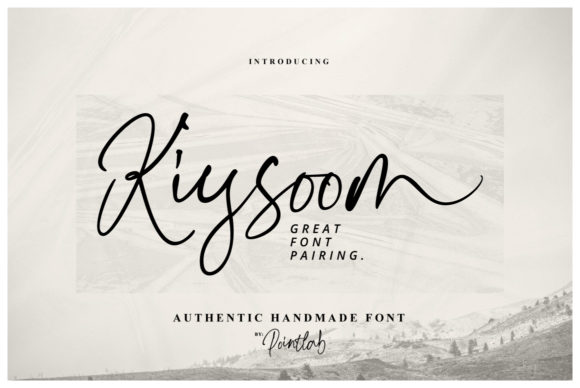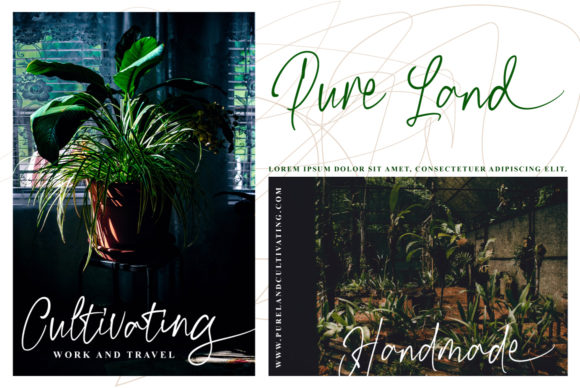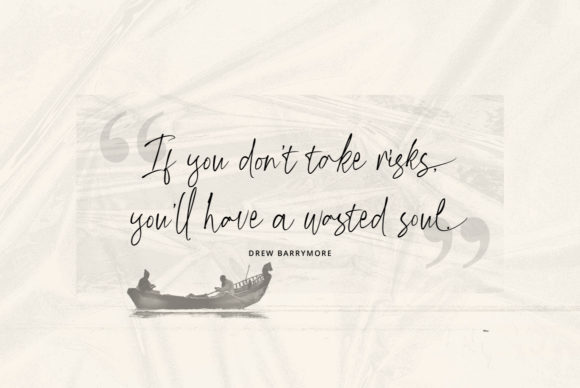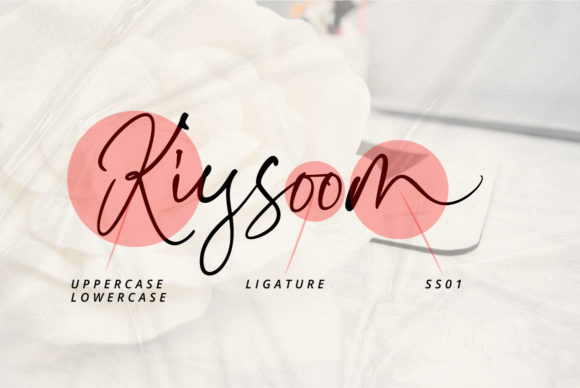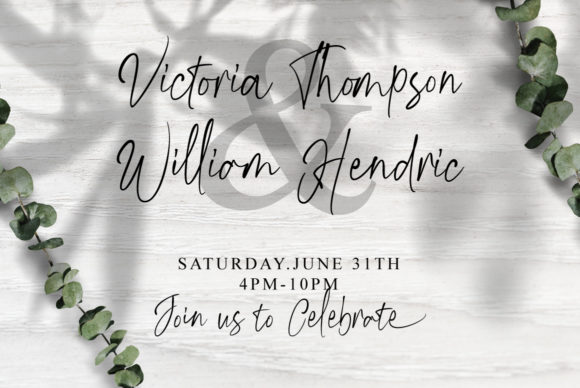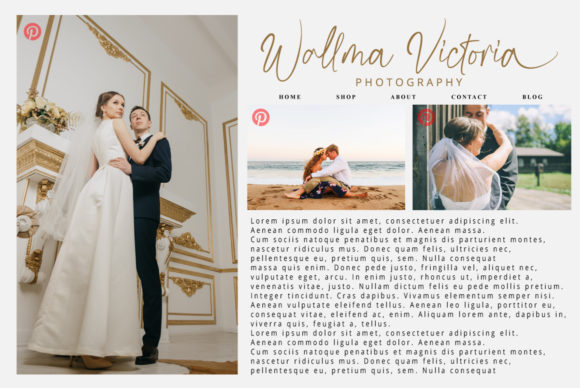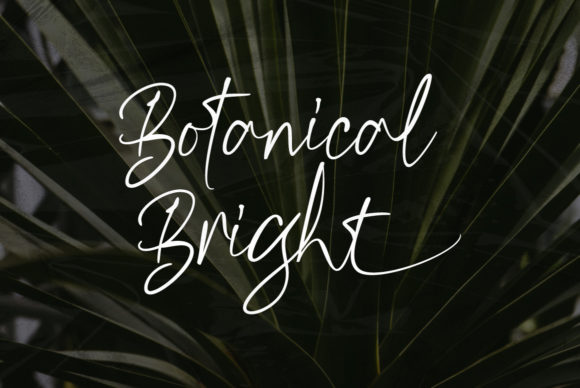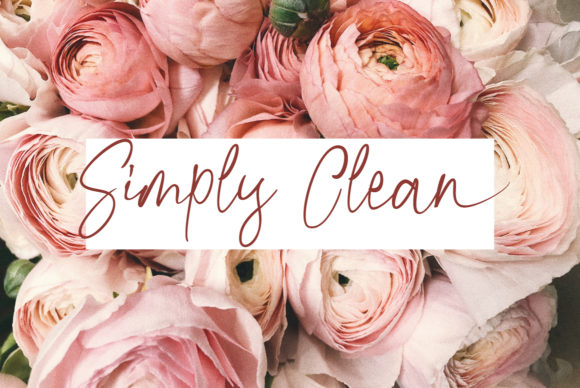
Kiysoom Font
About Kiysoom Font
Kiysoom is an incredibly authentic handwritten font with a beautiful and light feel. Get inspired by its lovely charm, and turn any design project into a stand out!